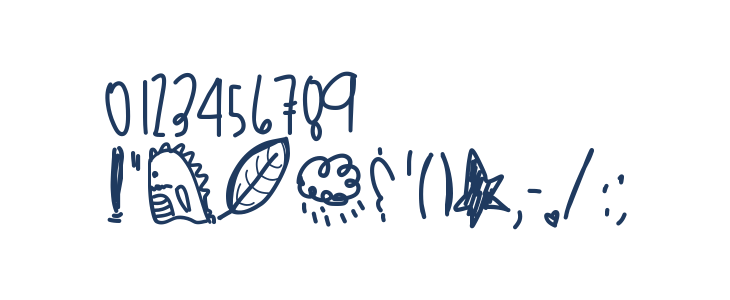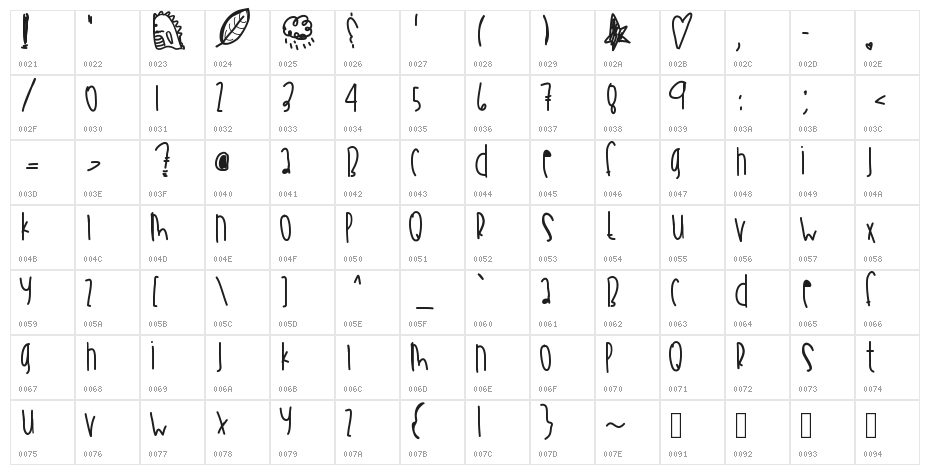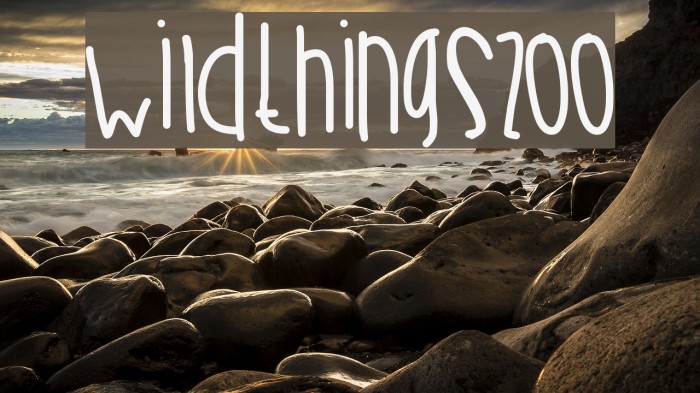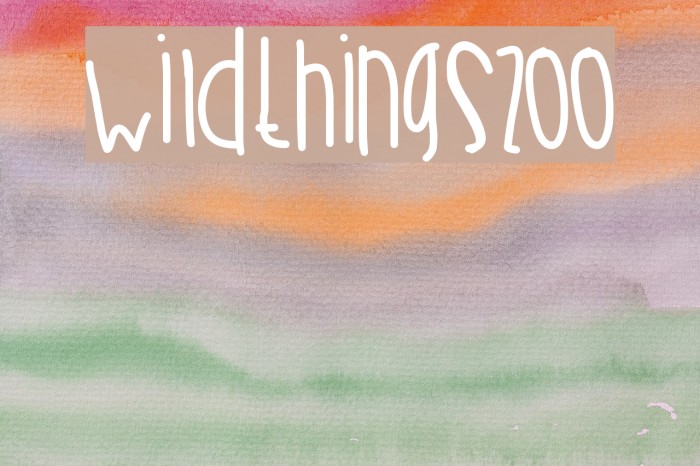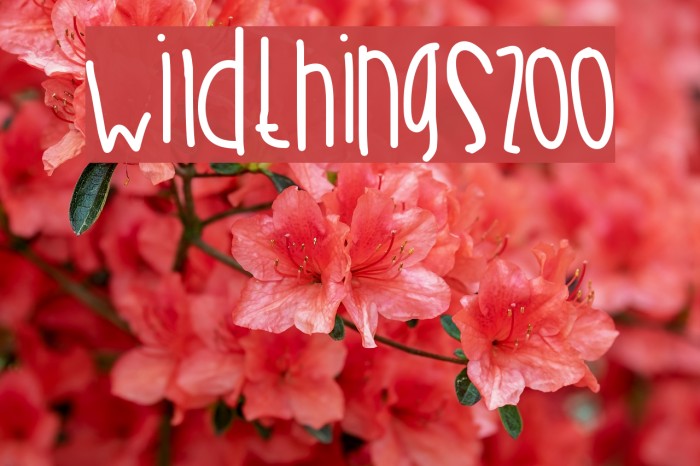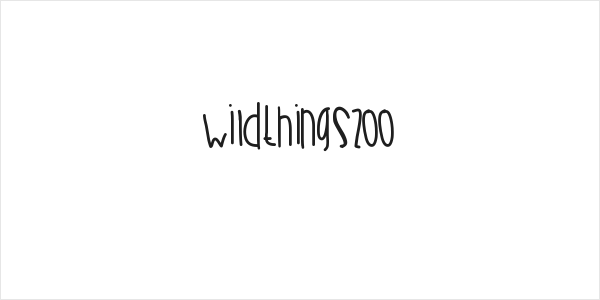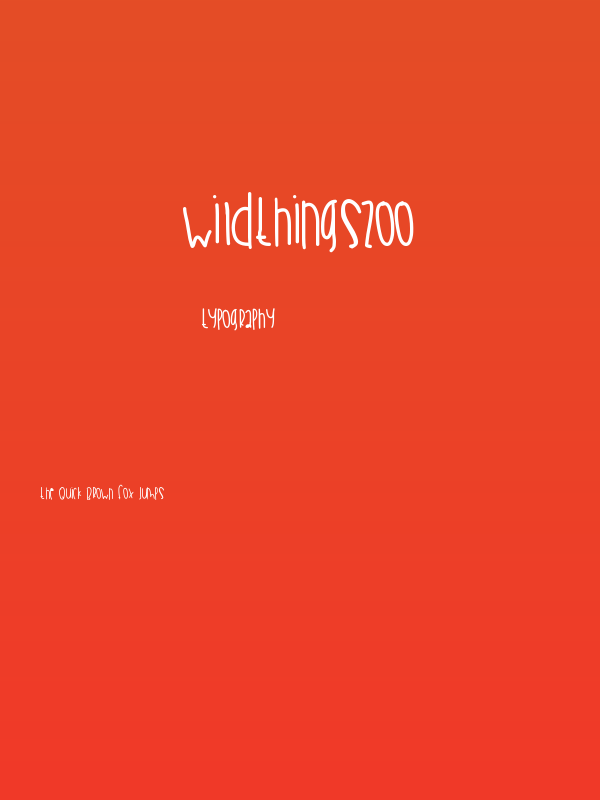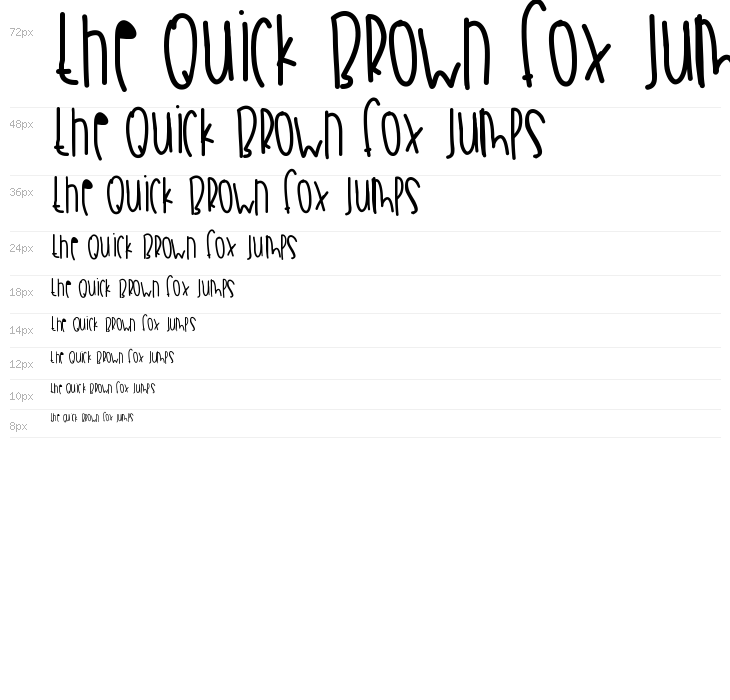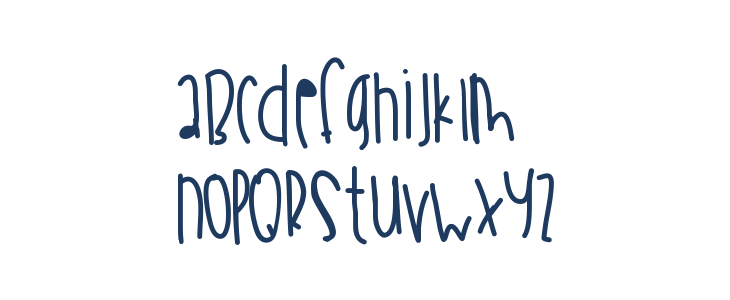
WildThingsZoo Font
WildThingsZoo Description
This playful and whimsical font features a handwritten style with irregular, organic shapes that give it a lively and dynamic appearance. The letters are tall and narrow, with varying stroke thickness that adds a sense of movement and energy. The font includes both uppercase and lowercase letters, numbers, and a selection of quirky special characters, such as a dinosaur, leaf, and cloud, which enhance its playful nature. The overall design is informal and friendly, making it suitable for creative and fun projects.
| Width | Condensed |
| Overall Style | Playful |
| Use Case | Headlines, Logos, Creative projects |
| Proposed Projects | Ideal for children's books, playful branding, greeting cards, and creative posters. |